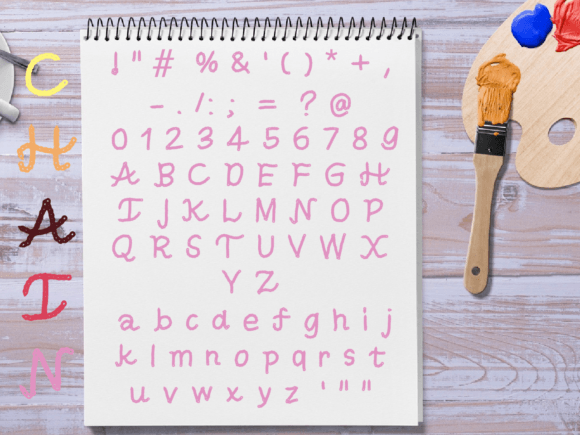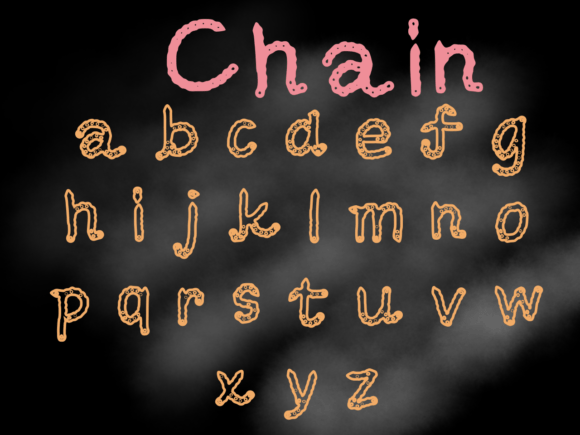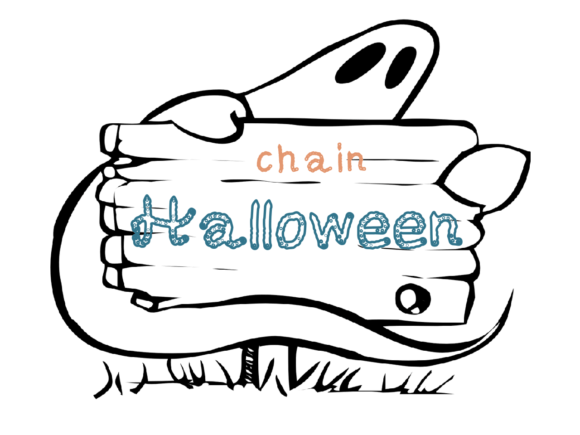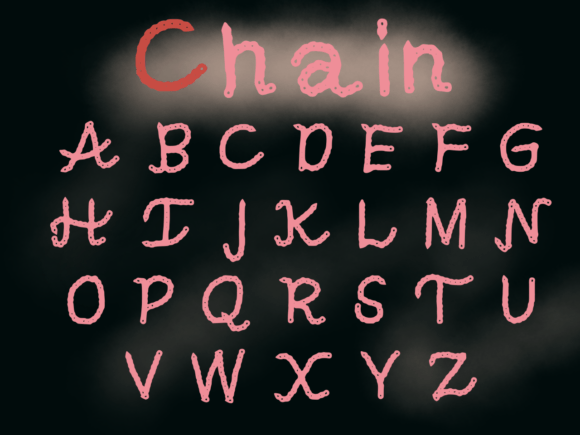
Introducing Chain Font: The Fun and Playful Handwritten Display Font
Are you tired of using the same old fonts in your design projects? Look no further! Chain Font is a fun and playful handwritten display font that’s sure to add an adorable twist to any design. With its unique circular elements, Chain Font is perfect for designers and crafters looking to add a touch of whimsy to their work.
What is Chain Font?
Chain Font is a handwritten display font that features circular elements that give it a playful and fun vibe. The font is designed to be eye-catching and engaging, making it perfect for use in a variety of design projects, from social media graphics to branding and packaging.
Key Features of Chain Font
- Handwritten style: Chain Font has a playful, handwritten style that’s perfect for adding a personal touch to your designs.
- Circular elements: The font features circular elements that give it a unique and playful look.
- Display font: Chain Font is designed as a display font, making it perfect for use in headlines, titles, and other prominent text elements.
- Adorable twist: Chain Font is sure to add an adorable twist to any design project, making it perfect for designers and crafters who want to create something fun and playful.
Uses for Chain Font
Chain Font is a versatile font that can be used in a variety of design projects, including:
- Social media graphics: Chain Font is perfect for use in social media graphics, such as Facebook posts, Instagram captions, and Twitter headers.
- Branding and packaging: The font can be used in branding and packaging design to add a playful and fun touch to product labels and packaging.
- Invitations and cards: Chain Font is perfect for use in invitations and cards, such as birthday cards, baby shower invitations, and wedding stationery.
- Signs and posters: The font can be used in signs and posters to add a playful and eye-catching element to your design.
Tips for Using Chain Font
Here are a few tips for using Chain Font in your design projects:
- Use it as a headline font: Chain Font is designed as a display font, making it perfect for use in headlines and titles.
- Pair it with a simple font: Chain Font is a playful font, so it’s best to pair it with a simple font to balance out your design.
- Experiment with colors: Chain Font looks great in a variety of colors, so don’t be afraid to experiment and find the perfect color for your design.
- Have fun with it: Chain Font is a fun and playful font, so have fun with it! Use it to add a playful touch to your design and make it stand out.
Chain Font is a fun and playful handwritten display font that’s perfect for designers and crafters looking to add a touch of whimsy to their work. With its unique circular elements and adorable twist, Chain Font is sure to make any design project stand out. So why not give it a try and see how it can add a playful touch to your next design project?